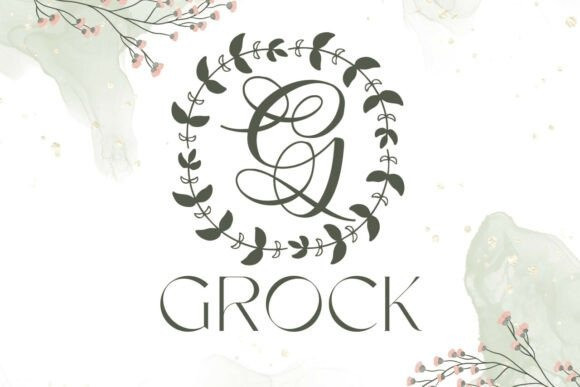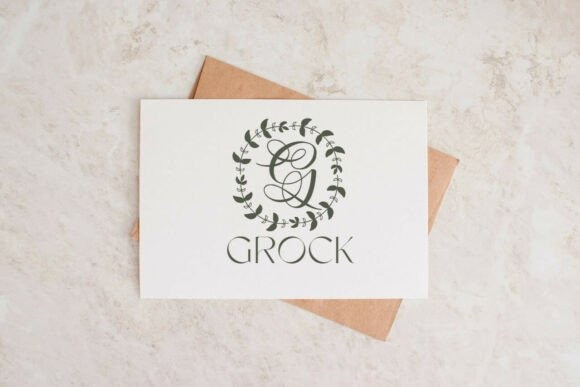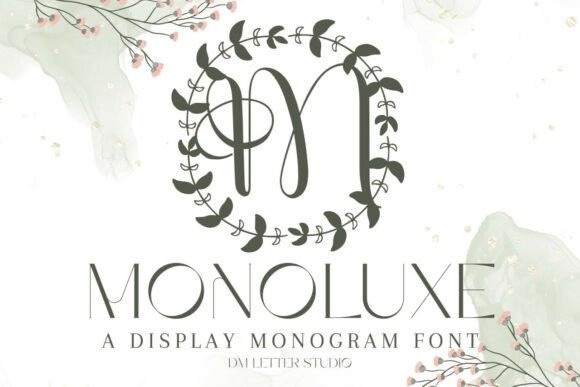
Monoluxe Monogram Font
Monoluxe Monogram Font transforms simple initials into sleek, boutique-ready emblems. The design features smooth, balanced lines and generous counters, ensuring your tiny tags remain perfectly readable.
This font is your secret weapon for a cohesive, high-end look across wedding suites, premium packaging, boutique logos, keepsake gifts, and foil seals. Its calm forms and even spacing guarantee that your layouts look refined at thumbnail size and stay crisp on large prints. The proportions favor symmetry and clarity, making centered compositions and consistent branding a breeze.